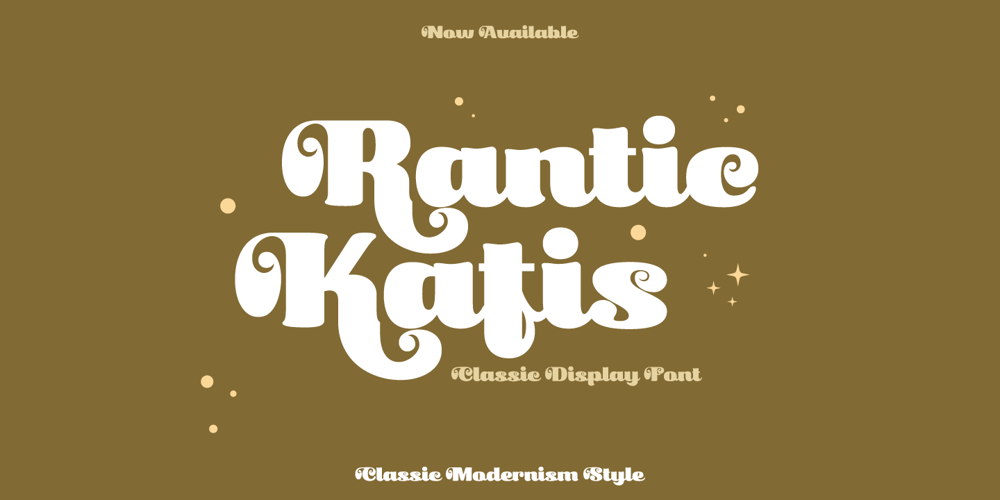
Rantic Kafis Font Family was designed by Lita Faolina and published by Product Type. Rantic Kafis contains 1 styles and family package options. Introducing Rantic Kafis, a classic modern font with a bold and elegant touch. This font features thick strokes and rounded edges, giving it a distinctive and sophisticated look. With its stylistic set options for upper and lowercase letters, Rantic Kafis adds a touch of individuality and creativity to any design.Rantic Kafis is the perfect font to add a classic modern feel to your work. Its thick strokes and rounded edges make it highly legible, ensuring that your designs are easy to read and understand.So if you’re looking for a font that combines the best of classic and modern design, look no further than Rantic Kafis. Download it now and start creating stunning designs that stand out from the crowd! What’s Included :- File font- All glyphs Iso Latin 1- We highly recommend using a program that supports OpenType features and Glyphs panels like many Adobe apps and Corel Draw, so you can see and access all Glyph variations.- PUA Encoded Characters – Fully accessible without additional design software.- Fonts include Multilingual support